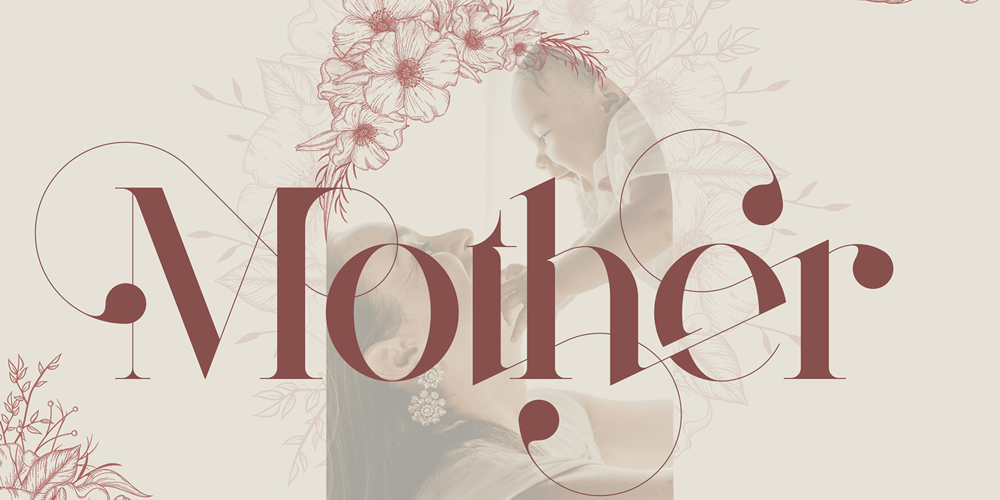
Mother VP Font Family was designed by Vladimir Fedotov, Plamen Petrov and published by VP Creative Shop. Mother VP contains 4 styles and family package options. Introducing Mother Serif Typeface – 5 fontsMother is named after all the moms and children left behind. This typeface is feminine, fragile typeface with 5 fonts loaded with ligature glyphs, alternates and multilingual support to enchant your next project. Very versatile fonts that works great in large and small sizes.Mother is perfect for branding projects, home-ware designs, product packaging, magazine headers – or simply as a stylish text overlay to any background image. Uppercase, lowercase, numeral, punctuation & Symbol Light Regular Medium Bold Black ligature glyphs ab ac ad ae ag ai al am an ap ar as at au ba be bi bl bo br ca cc ce ch ci cl co cr cs ct cu da de di do dr ea ec ed ee ei el em en eo ep er es et eu fa fb ffb fh ffh fj fk ffk ft fft ga gi gl gn go gr ha he hi ho hy ic id ie il im in io ip ir is it iv ka ke la le li ll lo lu ma me mi mo mp na nc nd ni no nt oc od ol om op or os ot ou pa pe pi po ra rc rd re ri ro sh si sm sp su ta te th ti to tr ts tt ul um un ur us ut ff fi fl ffi ffl st alternates Multilingual support How to access alternate glyphs?To access alternate glyphs in Adobe InDesign or Illustrator, choose Window Type & Tables GlyphsIn Photoshop, choose Window Glyphs. In the panel that opens, click the Show menu and choose Alternates for Selection. Double-click an alternate’s thumbnail to swap them out.Feel free to contact me if you have any questions!Mock ups and backgrounds used are not included.Thank you! Enjoy!